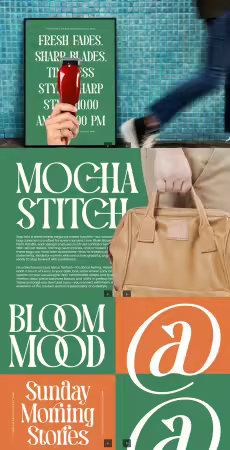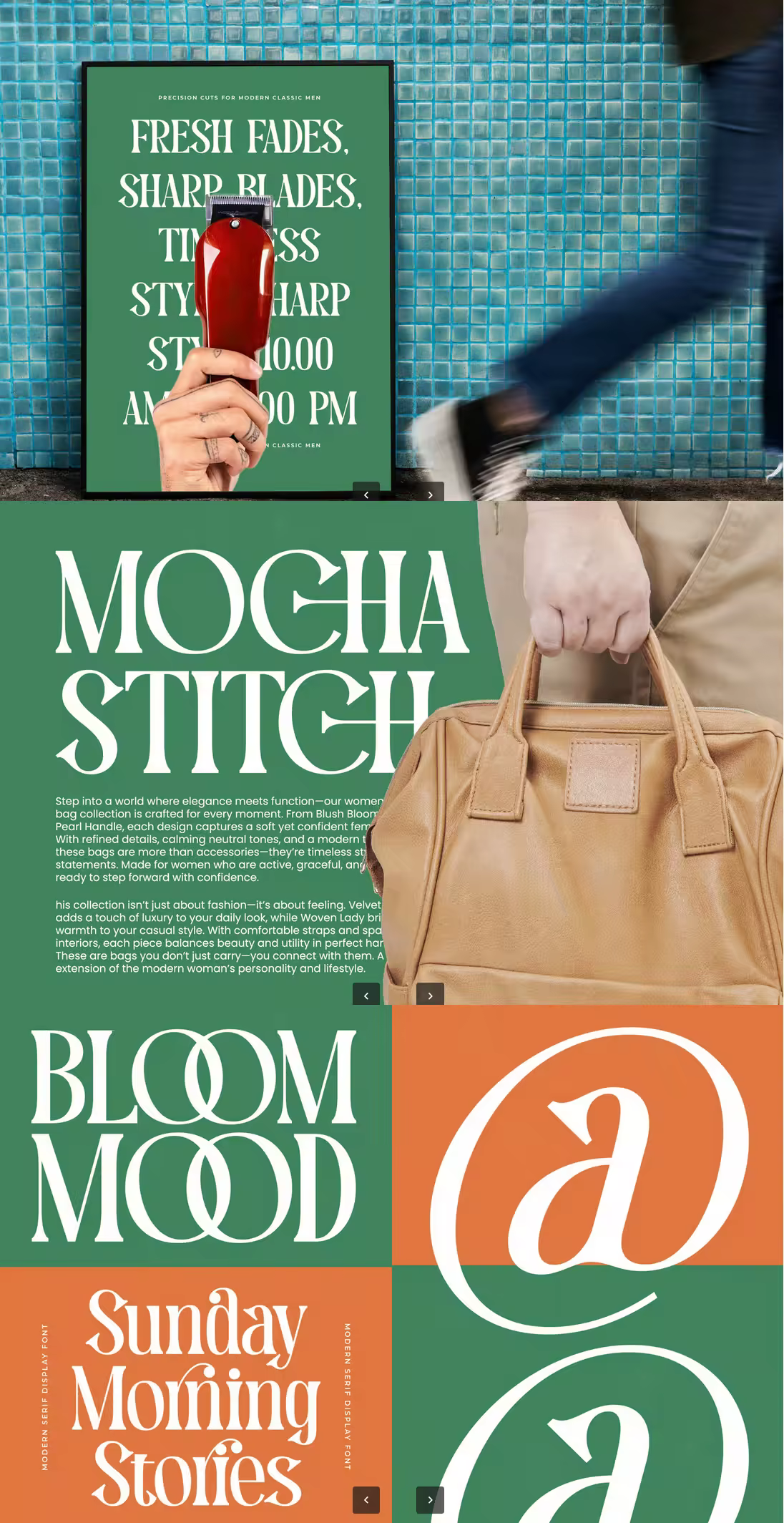
MEQUNCH is a refined modern serif display font with sharp vertical elegance, extended curves, and high–contrast strokes designed to elevate luxury branding, fashion editorials, boutique packaging, and artistic visuals; its 51 alternates and 19 ligatures give you full creative control to shape sophisticated headlines with a clean, upscale aesthetic.
Ligature
Uppercase and lowercase
Numbering and Punctuation